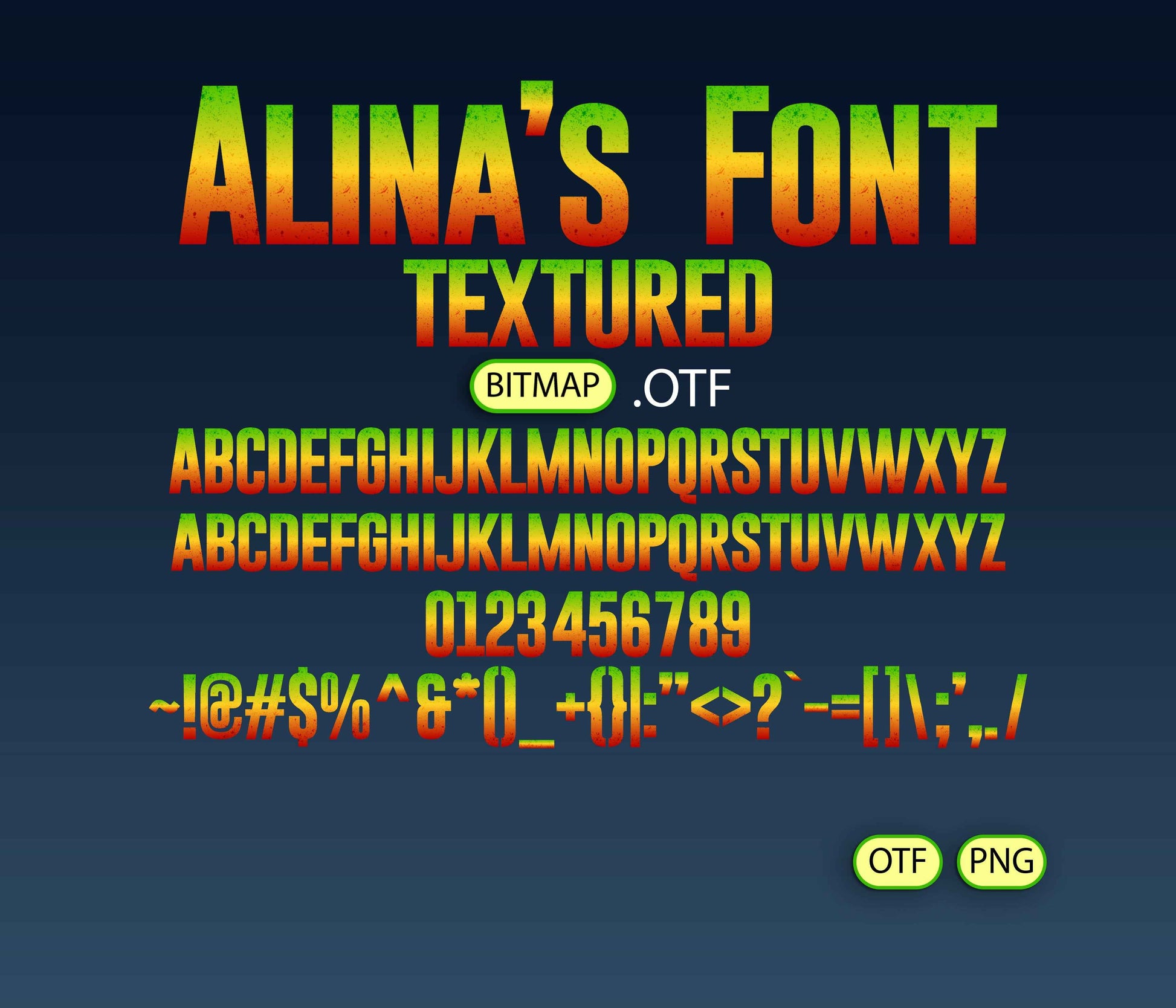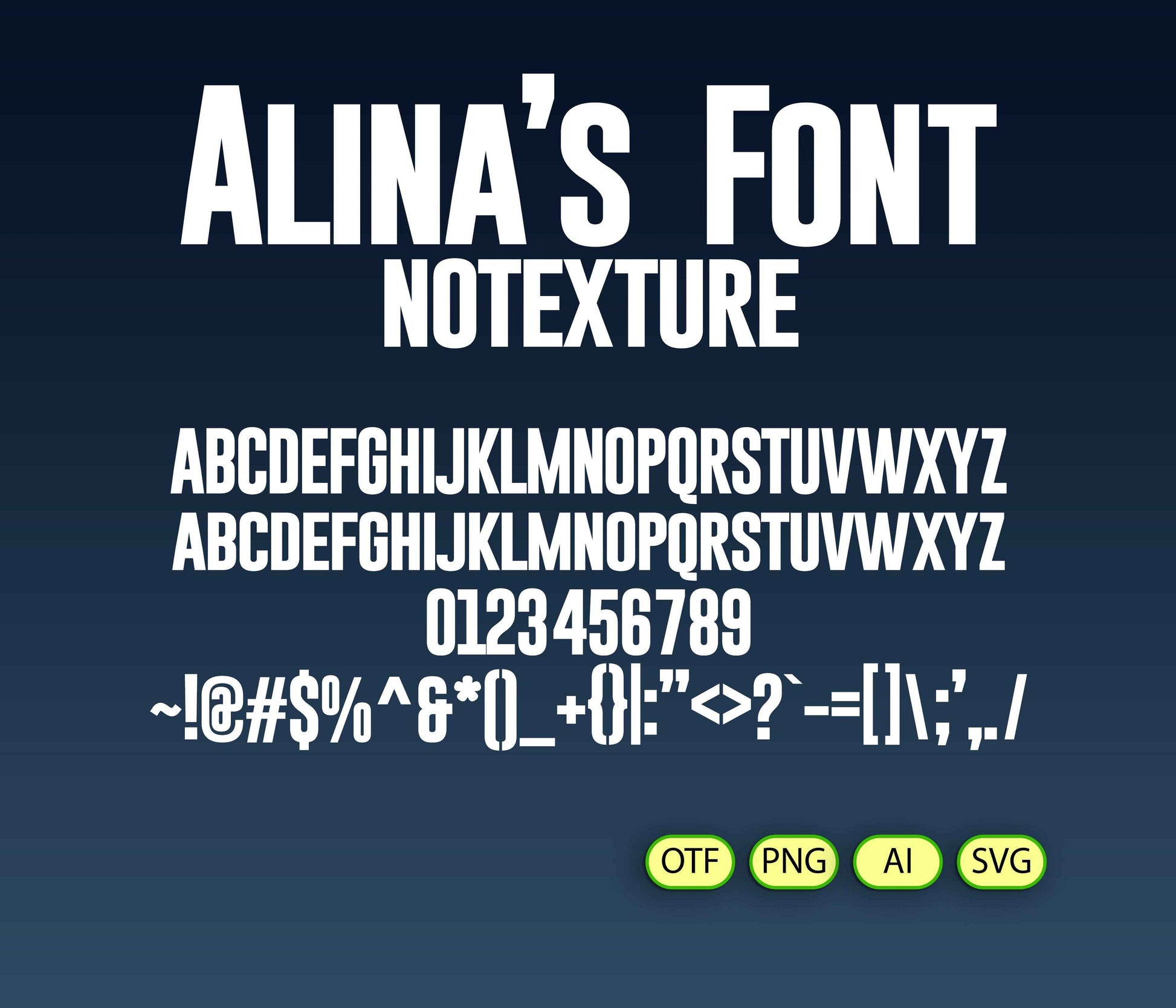
Reggae Legend Font Textured
Dive deep into the heart of reggae with our Reggae Legend font, a typographic tribute that encapsulates the spirit of the legendary musician and his profound cultural impact through film. This font is not just letters on a page; it's a journey back to the vibrant, revolutionary times that the iconic reggae artist symbolized, immortalized in documentaries and biopics that explore his life, music, and legacy. Embrace the essence of a genre that transcended music to become a movement, with every curve and line in our font reflecting the strength, rhythm, and soul of the reggae era.
Our Reggae Legend Movie font package is not just about the textured appearance that echoes the tactile feel of reggae's vinyl era. It also includes:
The Reggae Legend font is more than just typography; it's a celebration of a musical legend's enduring legacy, designed to inspire creativity and connection through the power of design. With its deep roots in the iconic imagery associated with the reggae legend and the versatility to cater to a wide array of creative needs, this font is an essential tool for anyone looking to infuse their projects with the soul, rhythm, and revolutionary spirit of reggae. Embrace the legacy, and let the Reggae Legend font transform your creative endeavors into tributes to the man who sang not just to entertain but to inspire change in the world.